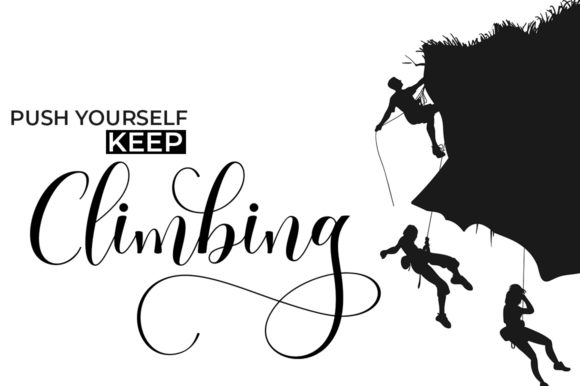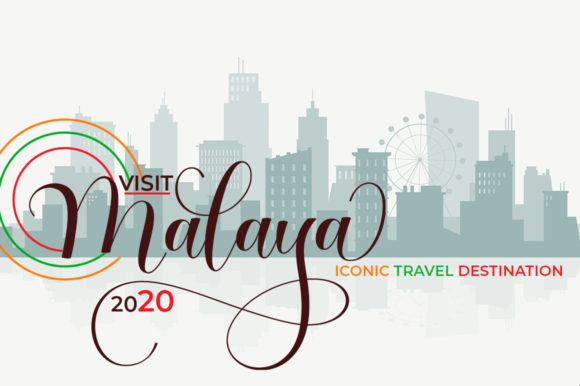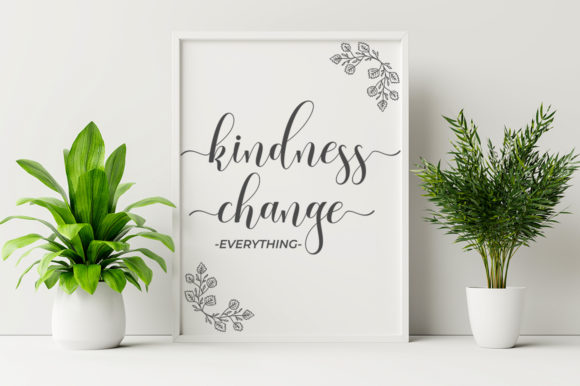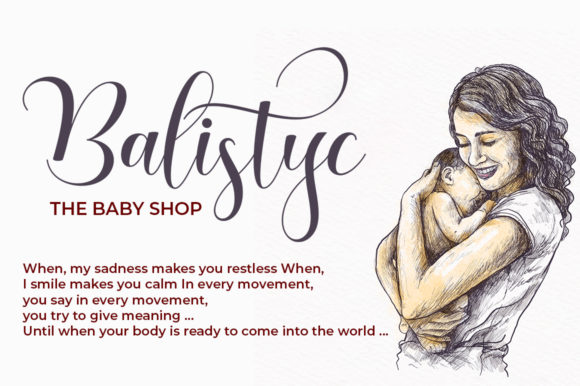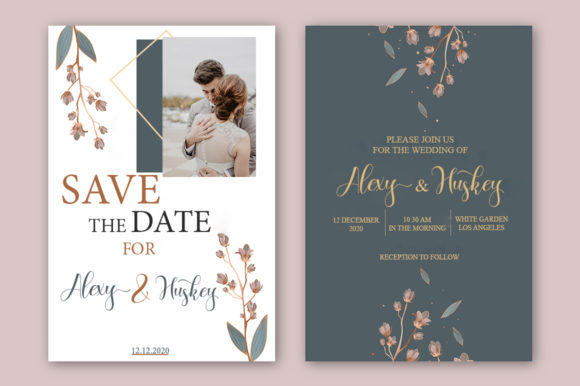
Baby Mathya Font: Elevate Your Designs with Elegance and Sophistication
In the world of typography, a beautiful font can make all the difference in elevating your designs to the next level. If you’re a designer, crafty enthusiast, or simply someone who appreciates the art of beautiful writing, then you’re in for a treat. Introducing Baby Mathya, an elegant and flowing handwritten font that’s sure to capture your heart. In this article, we’ll dive into the features and benefits of Baby Mathya, and explore how it can add a touch of sophistication and class to your projects.
A Font that Exudes Elegance and Sophistication
Baby Mathya is a stunning handwritten font that boasts a unique blend of classic calligraphic influences and modern flair. Its elegant and flowing lines are sure to add a touch of sophistication to any design, making it perfect for projects that require a high level of refinement. Whether you’re working on a wedding invitation, a branding campaign, or a digital product, Baby Mathya is the perfect choice for designers and crafters who want to create something truly special.
One of the standout features of Baby Mathya is its PUA (Private Use Area) encoding. This means that you can access all of the font’s glyphs and swashes with ease, giving you complete creative control over your designs. With PUA encoding, you can effortlessly navigate the font’s extensive character set, including alternates, ligatures, and other special characters. This feature makes it easy to add a personal touch to your designs, and ensures that your work stands out from the crowd.
Stunning Features and Characteristics
Baby Mathya is a font that’s full of beautiful features and characteristics. Some of its notable attributes include:
- Varying Baseline: Baby Mathya’s varying baseline gives it a natural, handwritten feel that’s perfect for creating organic and earthy designs.
- Smooth Lines: The font’s smooth lines and curves create a sense of fluidity and movement, making it ideal for designs that require a sense of dynamism.
- Gorgeous Glyphs: Baby Mathya comes with a range of gorgeous glyphs, including alternates, ligatures, and other special characters.
- Stunning Alternates: The font’s stunning alternates allow you to add a personal touch to your designs, and create unique and eye-catching typography.
Baby Mathya is a font that’s specifically designed with designers and crafters in mind. Its elegant and flowing lines make it perfect for a range of projects, including:
- Wedding Invitations: Baby Mathya is a popular choice for wedding invitations, thanks to its romantic and sophisticated feel.
- Branding Campaigns: The font’s elegant and refined lines make it perfect for branding campaigns that require a high level of sophistication.
- Digital Products: Baby Mathya can be used to create stunning digital products, such as e-books, workbooks, and other digital publications.
- Crafting Projects: The font’s beautiful lines and curves make it perfect for crafting projects, such as card making, scrapbooking, and other paper crafts.
Why Choose Baby Mathya?
So why choose Baby Mathya over other fonts? Here are just a few reasons:
- Unique and Elegant: Baby Mathya is a unique and elegant font that’s sure to add a touch of sophistication to your designs.
- Easy to Use: The font’s PUA encoding makes it easy to access all of its glyphs and swashes, giving you complete creative control over your designs.
- Versatile: Baby Mathya can be used for a range of projects, from wedding invitations to branding campaigns and digital products.
- High-Quality: The font is of exceptionally high quality, with smooth lines and curves that will make your designs stand out.
| Author | Natural Ink |
In conclusion, Baby Mathya is a stunning handwritten font that’s perfect for designers and crafters who want to add a touch of elegance and sophistication to their projects. Its unique blend of classic calligraphic influences and modern flair makes it a versatile font that can be used for a range of applications. With its PUA encoding, gorgeous glyphs, and stunning alternates, Baby Mathya is a font that’s sure to capture your heart and elevate your designs to the highest levels.